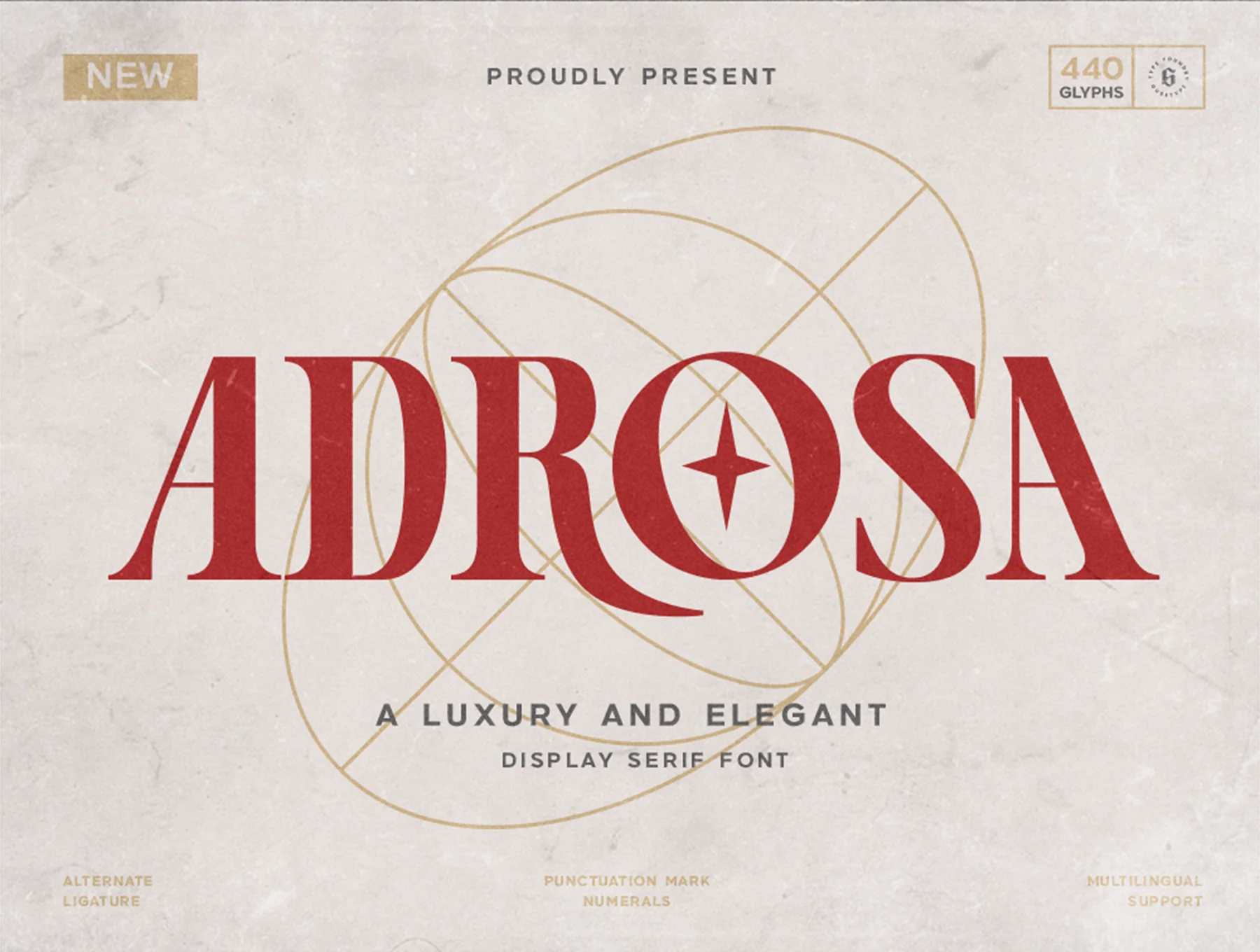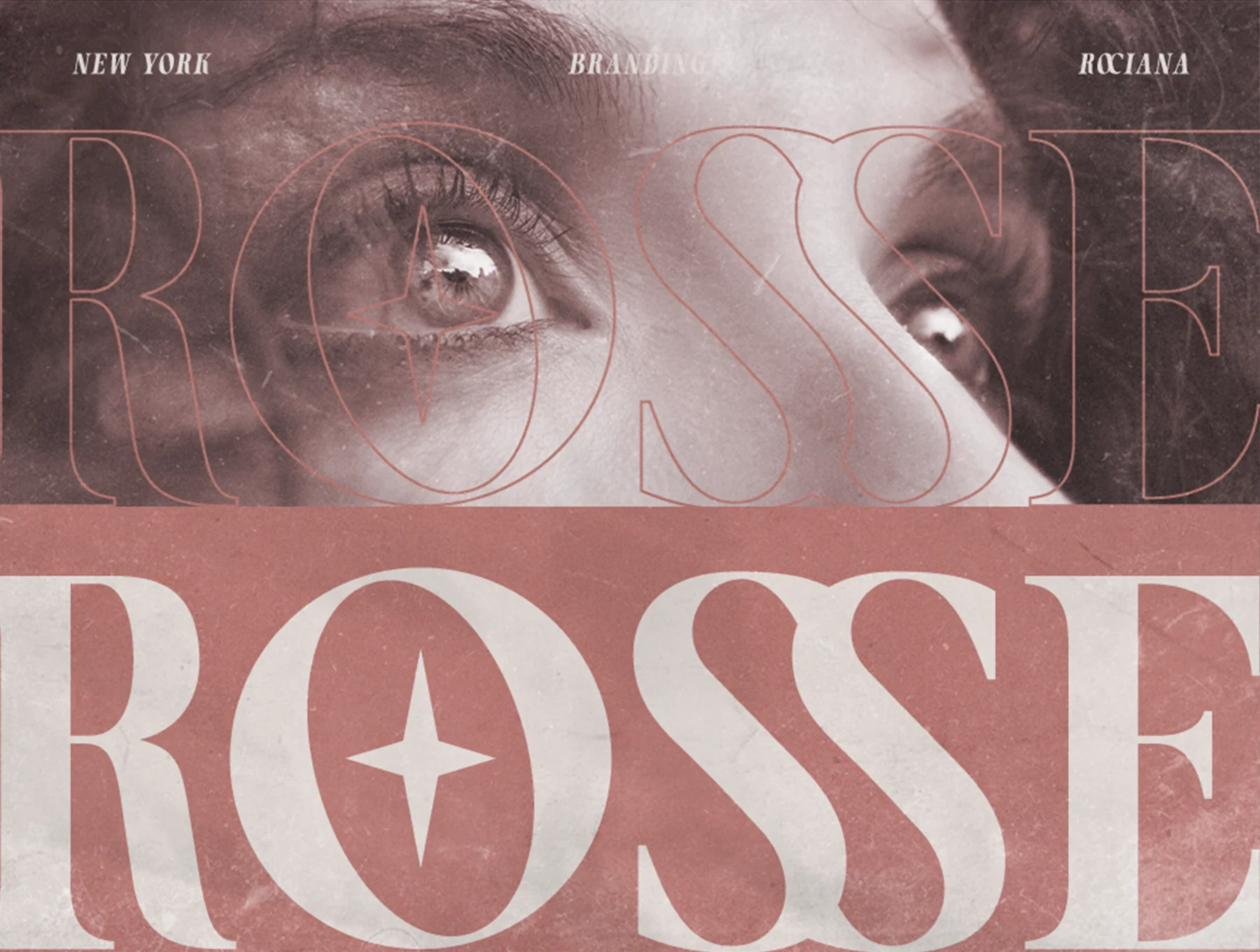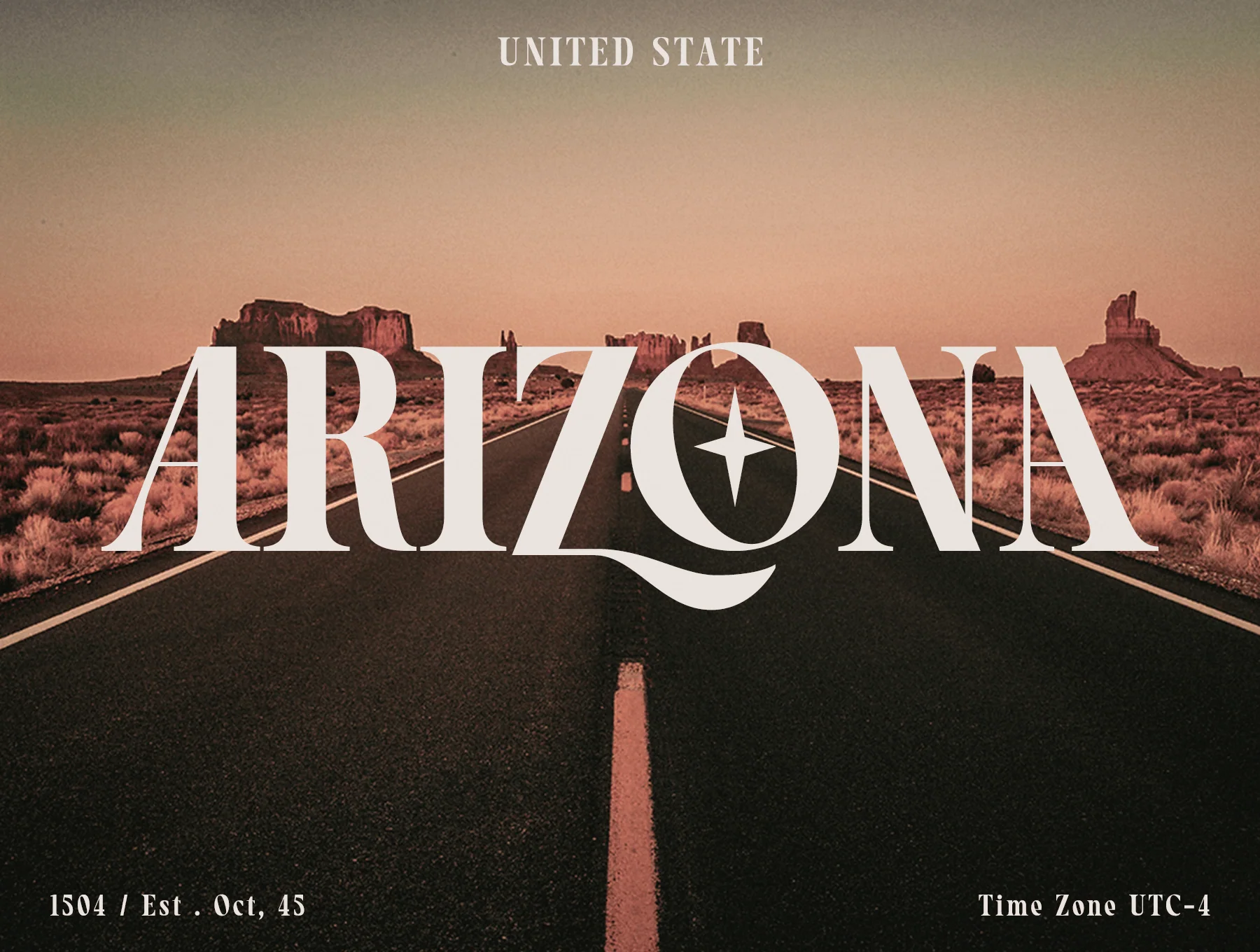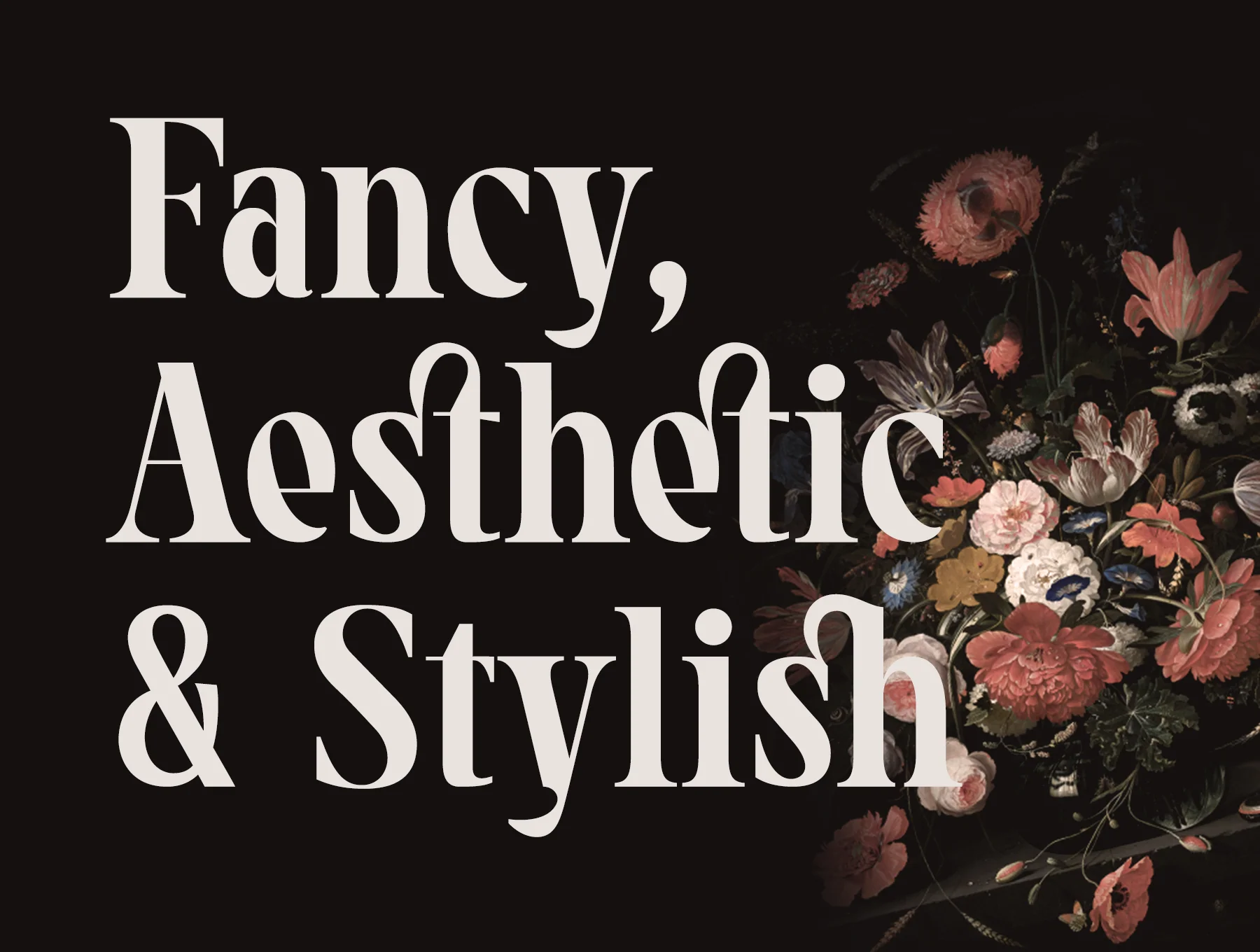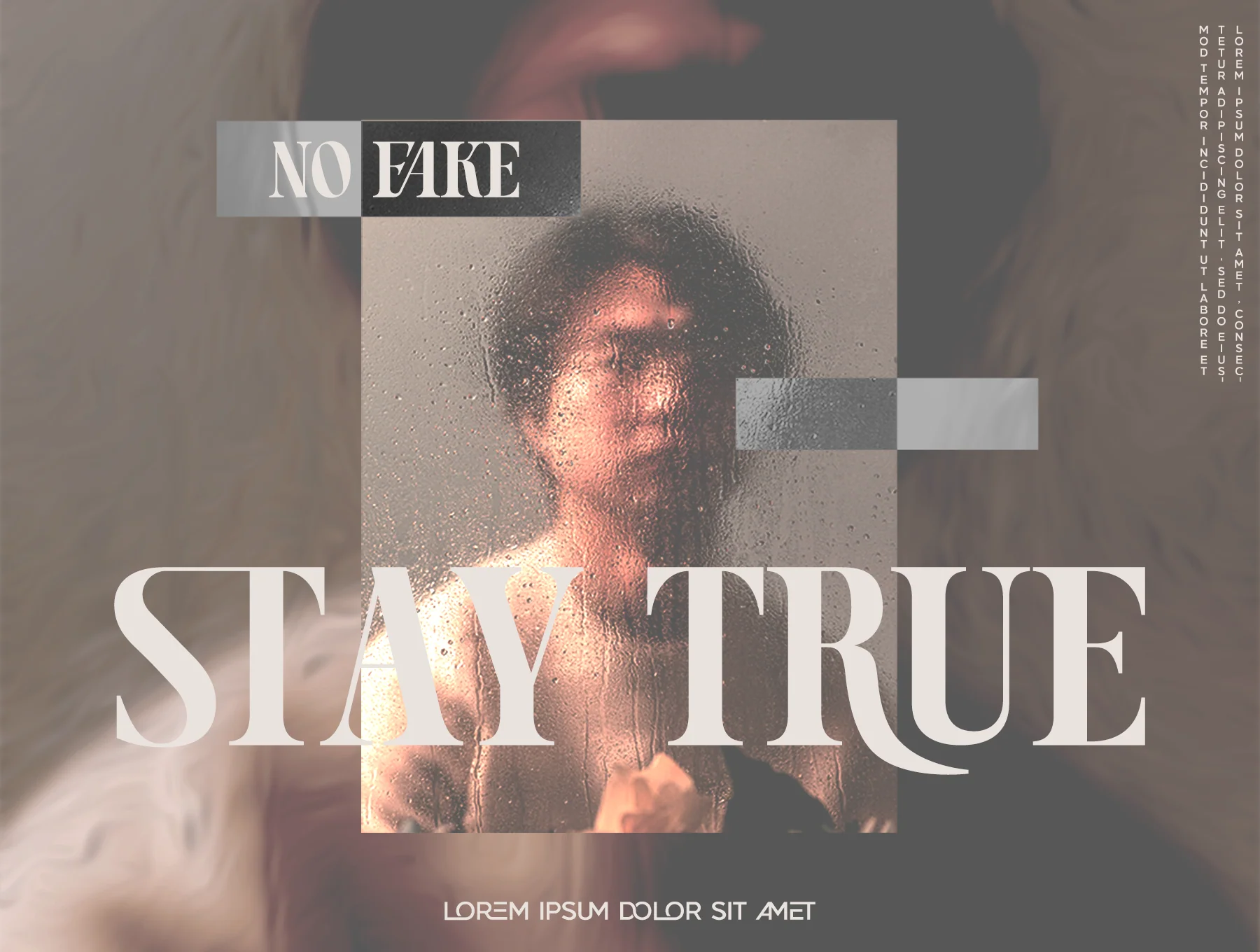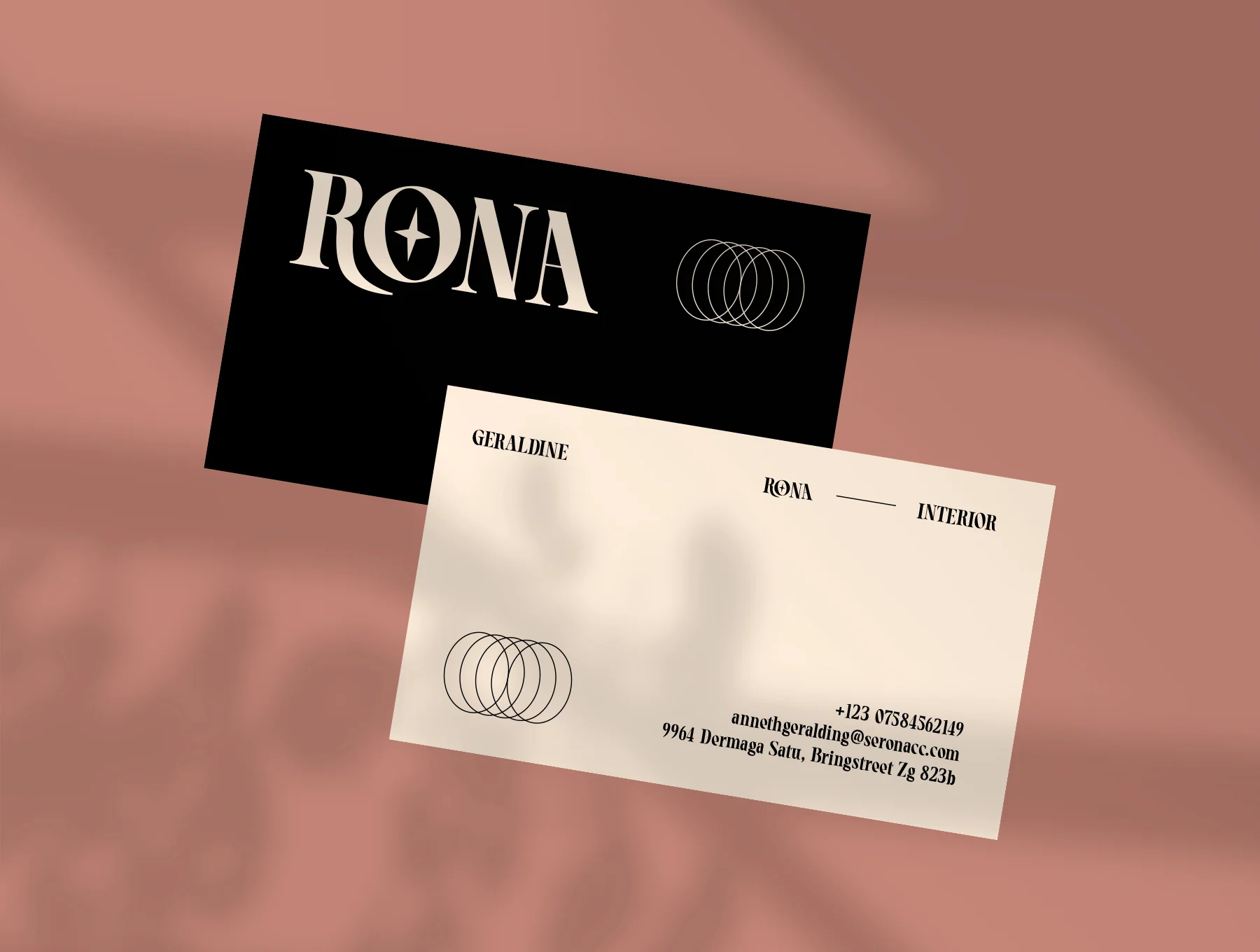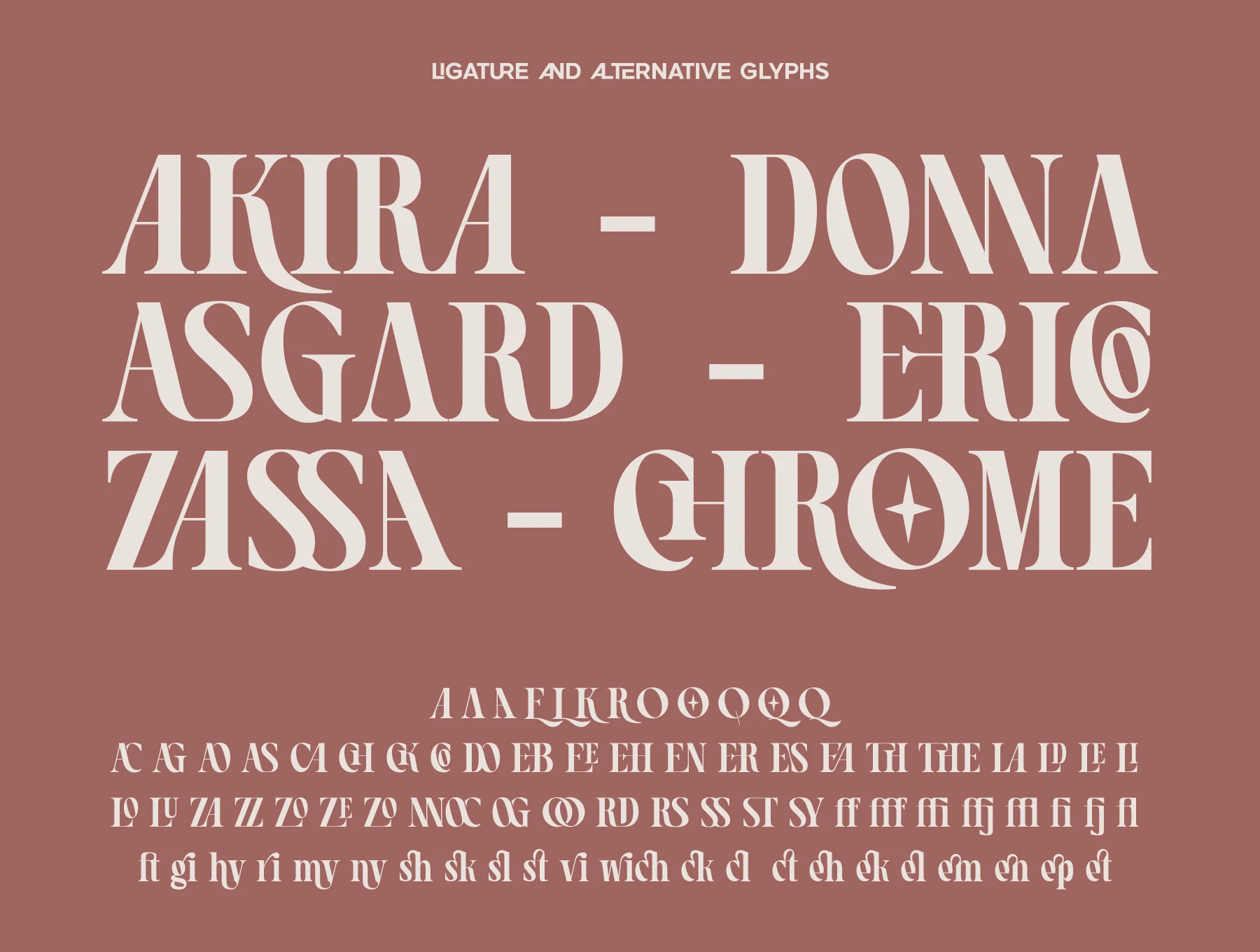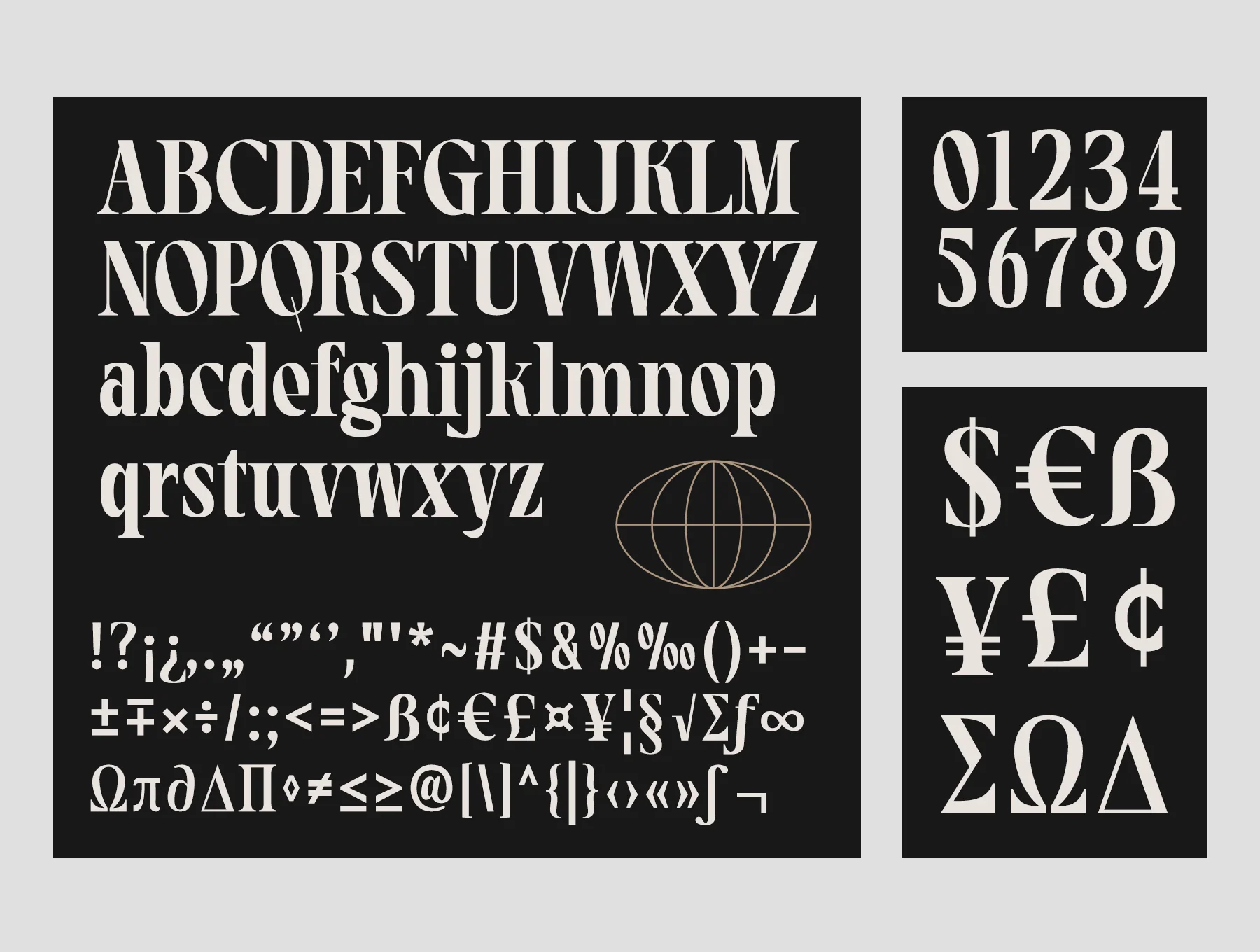
Adrosa Font
Elegant Luxury Serif Display Font
Refined serif typeface
Capital and small letters, numbers
Symbols and punctuation characters
Adrosa is a refined, luxurious display serif typeface ideal for poster titles, logos, magazine headers, brochures, and many other design projects. Its ligatures and alternate glyphs add a graceful, stylish look to your work. The font also includes basic characters, numbers, punctuation, symbols, and multilingual support. Thank you for visiting, and enjoy using it.